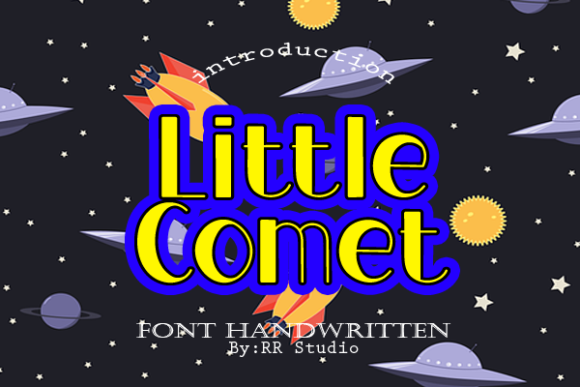
About Little Comet Font
Little Comet is a font that embodies both style and elegance, making it a perfect choice for a variety of design projects. Its handwritten charm adds a personal and unique touch to any creative endeavor, making it a versatile option for different contexts.
When it comes to wedding invitations, Little Comet shines as it brings a sense of sophistication and refinement to the design. The font’s elegant strokes and graceful curves complement the romantic and special nature of wedding-related materials, setting the tone for a memorable event.
For thank you cards, Little Comet adds a heartfelt and genuine feel to your expressions of gratitude. Its stylish appearance enhances the sincerity of your message, making recipients feel appreciated and cherished.
The font’s ability to beautifully present quotes and sayings makes it an ideal choice for creating inspirational and motivational content. Whether it’s a social media post, a wall art design, or a greeting card, Little Comet lends a touch of elegance that enhances the impact of your words.
Incorporating Little Comet into logos and business cards instantly elevates the brand’s image. The font’s customized touch and refined aesthetics convey professionalism and creativity, making a lasting impression on potential clients and partners.
One of the remarkable features of Little Comet is its adaptability. Its versatile nature allows it to seamlessly fit into a wide range of design projects, ensuring that every creation benefits from its stylish and elegant appearance.
The carefully crafted handwritten style of Little Comet offers a sense of authenticity and authenticity, making it an excellent choice for designs that require a personal connection with the audience. Its ability to add a customized touch to various design elements makes it a valuable asset in your creative toolkit.
Overall, Little Comet is a stylish and incredibly elegant handwritten font that brings a touch of sophistication to wedding invitations, thank you cards, quotes, greeting cards, logos, business cards, and more. Its customized appearance and timeless elegance make it a standout choice for any project that seeks to make a lasting impression with a touch of class.